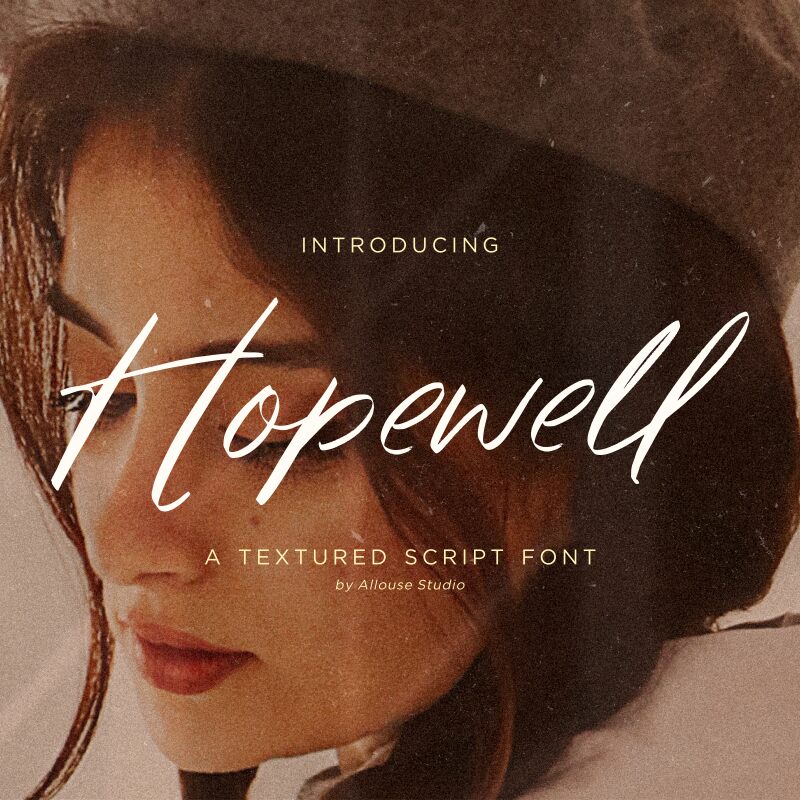
Hopewell
Hopewell font is a carefully designed free handwritten font by Allouse Studio with a modern design and added sophistication. The light font provides artists with a collection of uneven letters that focus on capturing uniqueness and reflecting identity, bringing the elegant designs users aim for when working on their projects. It offers flowing lines, personalized touches, and visual harmony.
Use this resource to see what Hopewell can achieve when it’s added to posters, greeting cards, and notebook covers. Magazines already hold an exquisite style so a touch of this light tech font can be perfect for their headings and subheadings as well as inscriptions that add artistic flair to stationary items like business cards or even book covers.